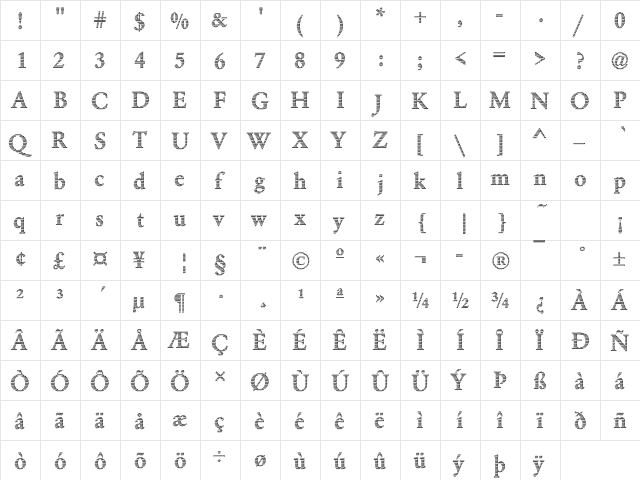
Garamond07 Becker Regular
Garamond07 Becker offers clean, dependable letterforms without strong stylistic allegiance, making it a practical choice for designers who need flexibility.